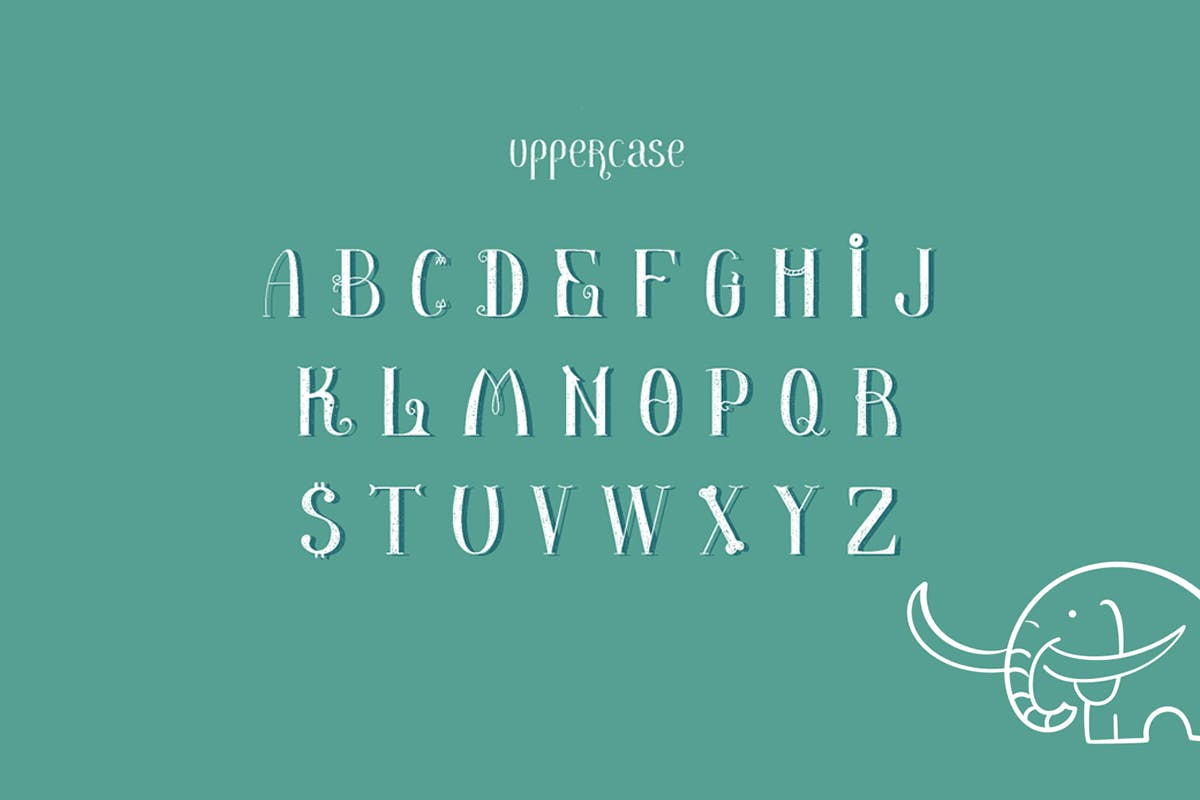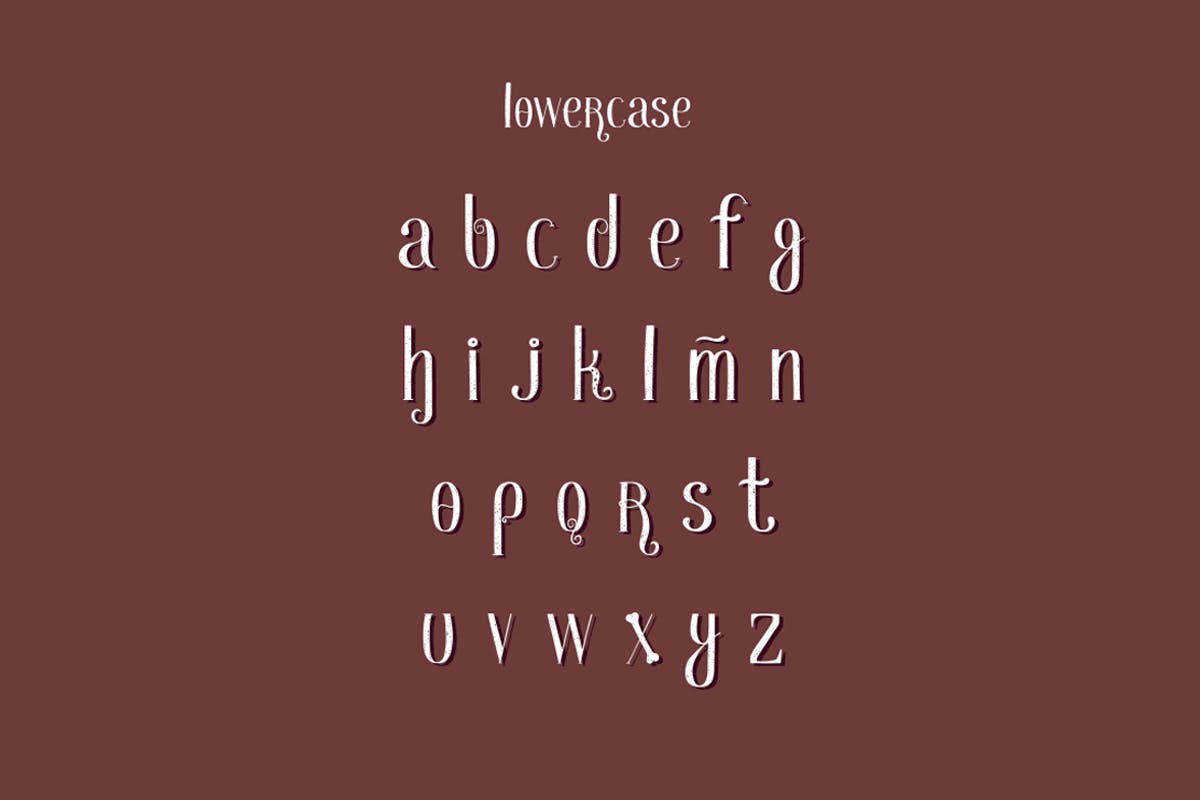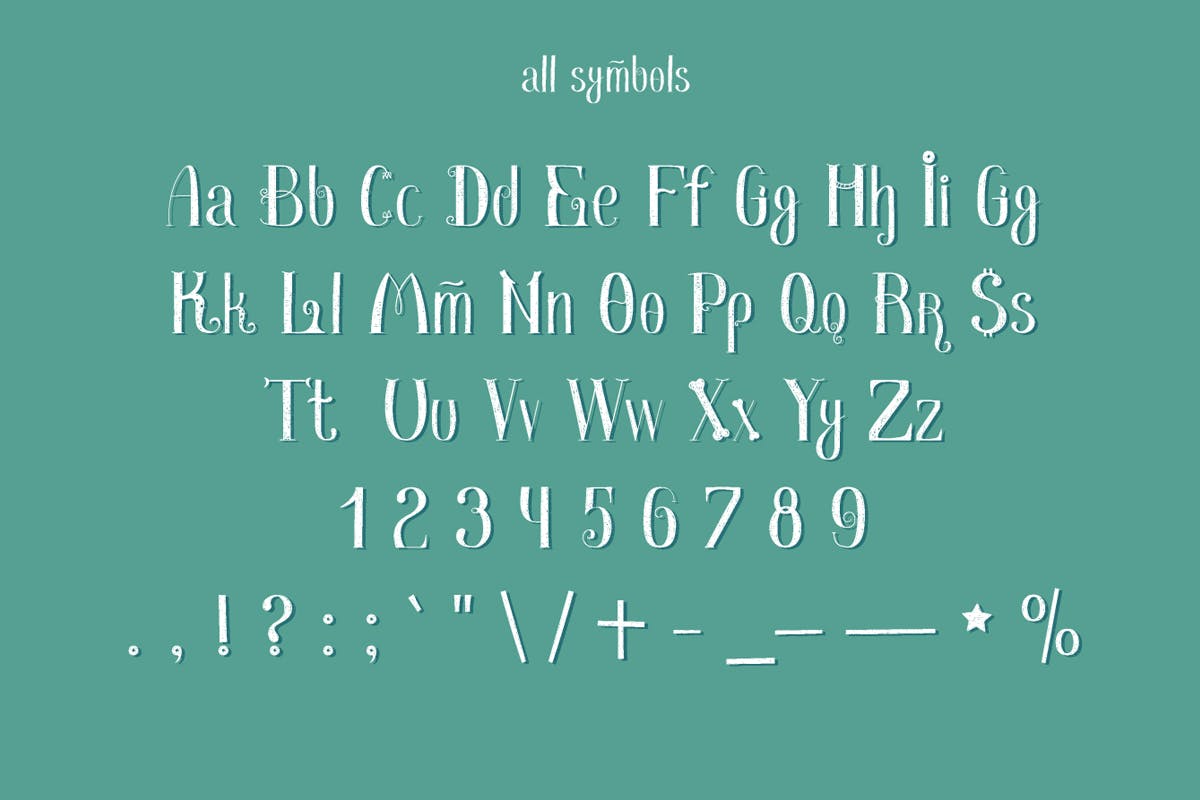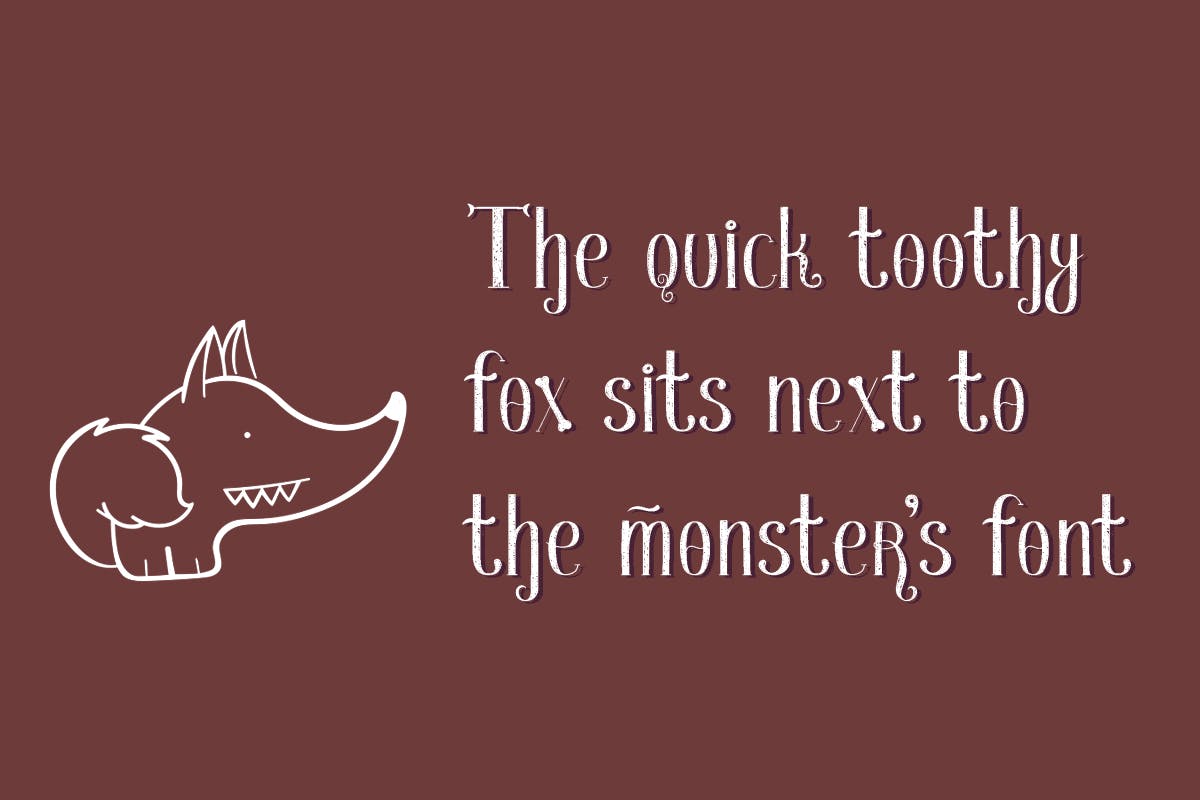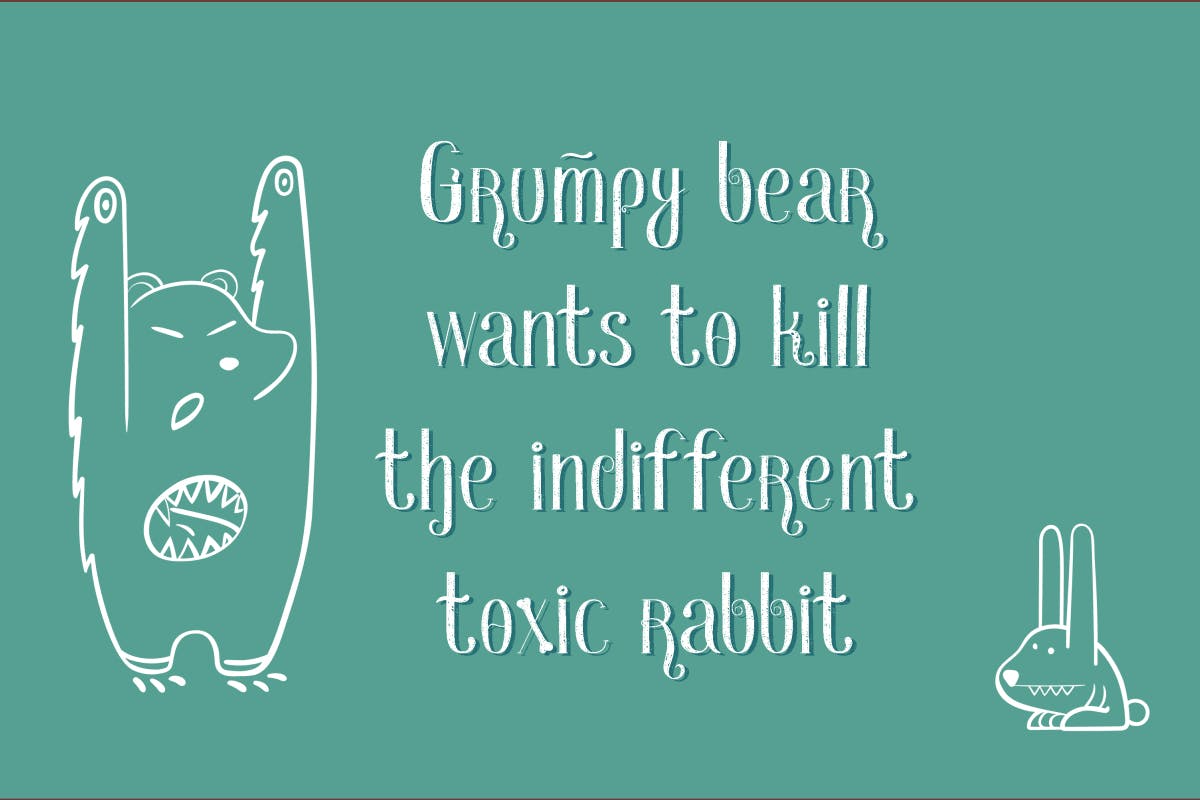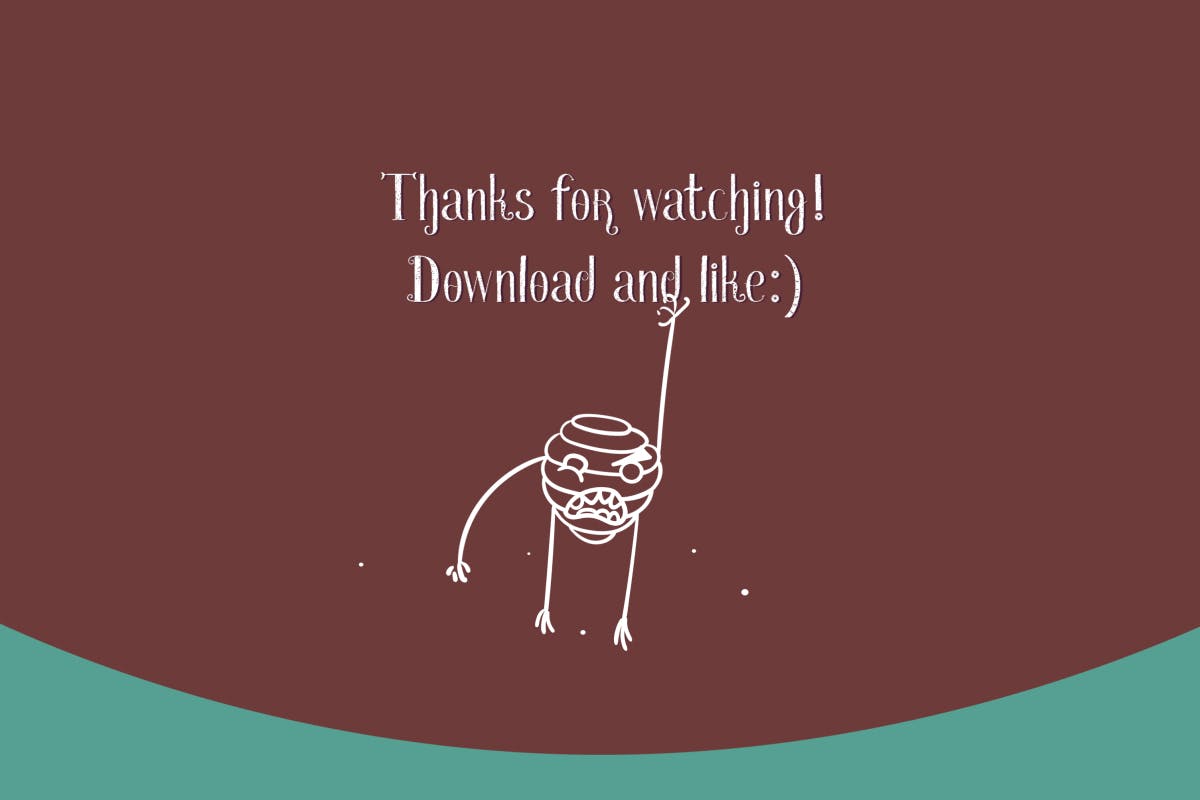
Monster Regular Free Font
Monster Regular Free Font is a decorative typeface from Nikita Kita. As we can see in the previews above, this free font is going to be a great pair for cute handmade illustration. Therefore, Monster will be ideal for branding font, logotype, greeting cards, poster and many more!